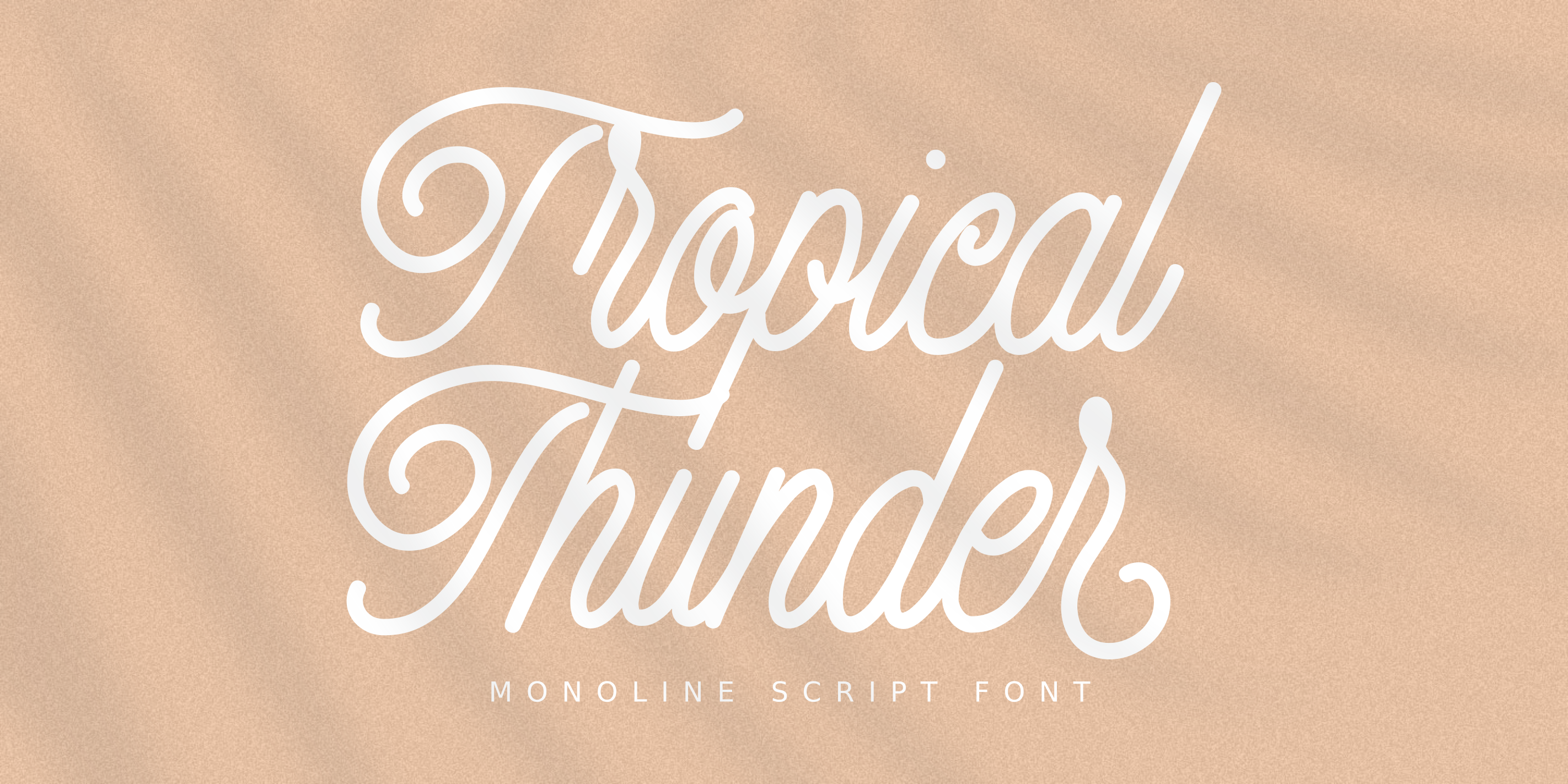
This vibrant typeface excels in summer festival posters, tropical resort branding, beach party invitations, surfing magazines, tiki bar signage, vacation advertising campaigns, island-themed restaurants, and outdoor adventure promotions. Its energetic design makes it perfect for projects that need to capture the excitement and warmth of tropical destinations.
Tropical Thunder Font generates excitement through its dynamic energy that perfectly embodies the spirit of paradise and adventure. The font's bold strokes and flowing letterforms create an atmosphere of fun and relaxation that instantly transports viewers to sun-soaked beaches and swaying palm trees. Its carefully crafted character variations deliver powerful visual impact while maintaining the carefree essence of tropical living.
The Tropical Thunder Font family includes multiple style variations such as regular, bold, outline, shadow, and distressed versions. Each family member preserves the core tropical aesthetic while offering unique textures and weights for diverse design applications. This versatile collection enables designers to create dynamic compositions that capture the full spectrum of tropical experiences from serene sunsets to thunderous ocean waves.